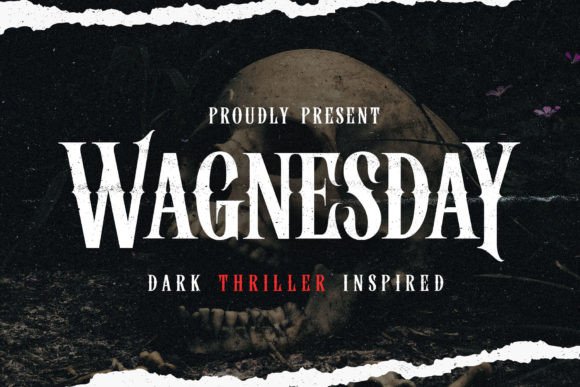
Introducing Wagnesday Font, the ultimate choice for captivating movie titles and beyond. Crafted by the talented Arterfak Project, this bold and thick lettered blackletter font is here to revolutionize your creative projects.
With its commanding presence and unique design, Wagnesday Font effortlessly grabs attention and adds a touch of intrigue to any text. Whether you're working on a movie poster, logo, or website, this font will elevate your work to new heights.
One of the standout features of Wagnesday Font is its PUA encoding. This means that accessing all the exquisite glyphs and swashes has never been easier. Unlock a world of creative possibilities and effortlessly enhance your designs with this font's extensive range of characters.
Embrace the power of Wagnesday Font and immerse yourself in a world of endless creativity. Its captivating and expressive nature will evoke deep emotions in your audience, leaving a lasting impact on viewers and readers alike. From intense action movies to gripping dramas, this font sets the tone for unforgettable cinematic experiences.
With Wagnesday Font, you can confidently bring your vision to life. Let your imagination run wild as you explore the boundless possibilities this font offers. Its versatility allows it to adapt effortlessly to any genre or style, making it the go-to choice for designers and creatives across the globe.
Enhance your projects with Wagnesday Font and watch as your work takes on a whole new dimension. Stand out from the crowd and leave a lasting impression on your audience with this captivating and powerful font. Its bold strokes and intricate details will make your designs truly unforgettable.